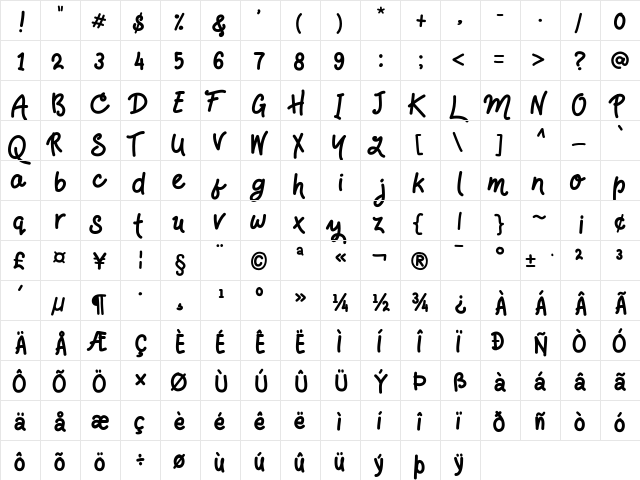
HandsDown Regular
Design Context for HandsDown Typeface
HandsDown brings a calligraphic fluidity to the page — its connecting strokes and expressive curves give it an unmistakably human quality.
Font Pairing: Combine HandsDown with a simple geometric sans for maximum contrast — the tension between flowing curves and clean structure is a classic typographic pairing.
Pro Tip: Use HandsDown for short runs of text — names, titles, or taglines. Extended body copy in script faces tires the eye quickly.